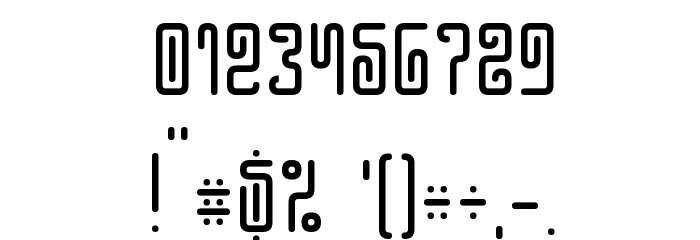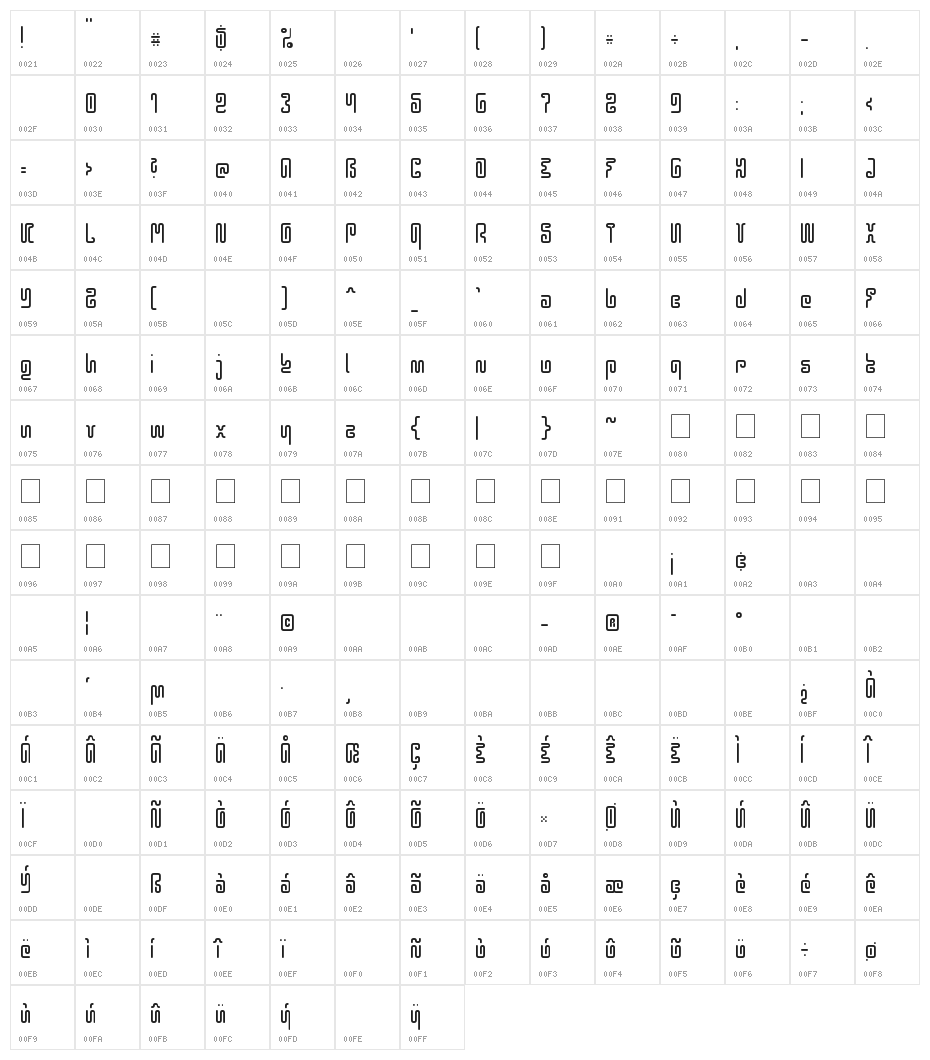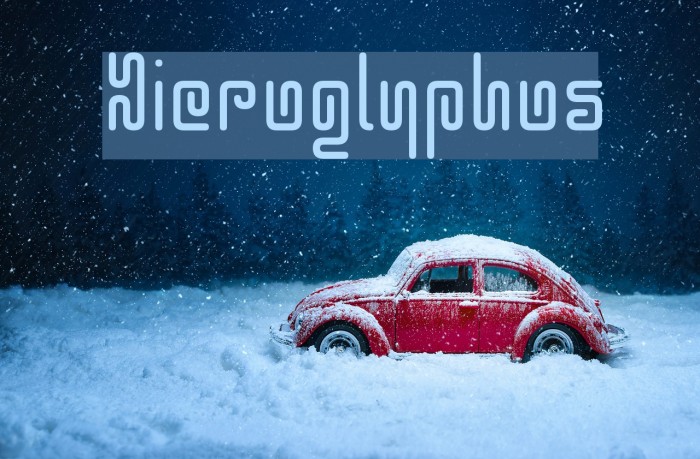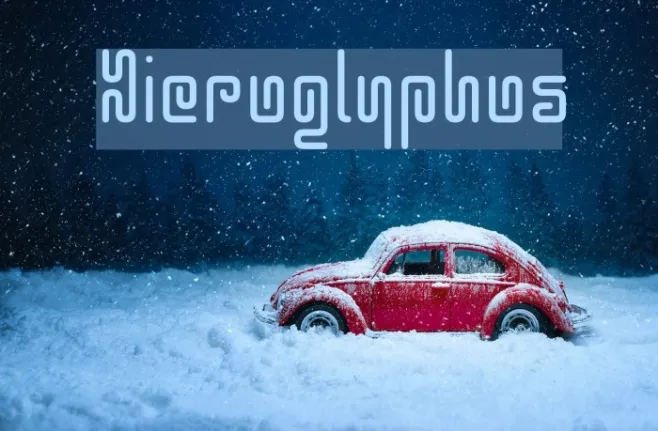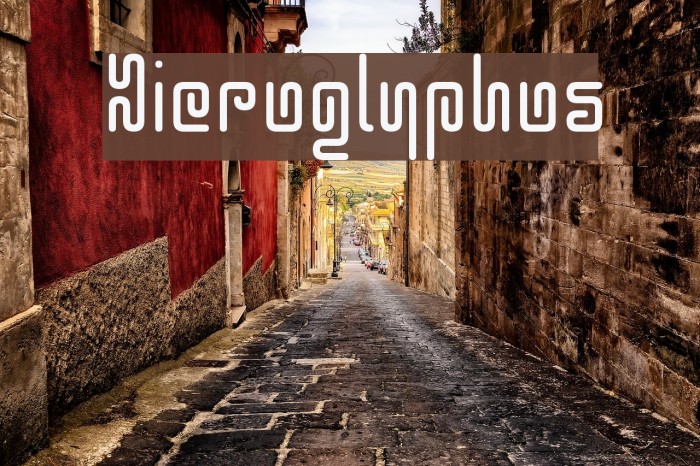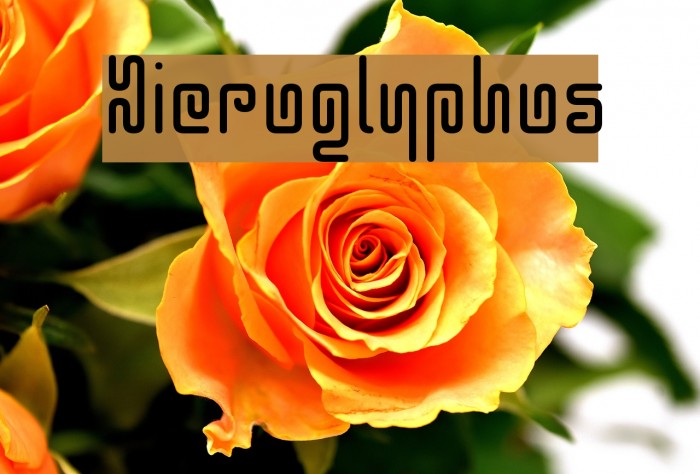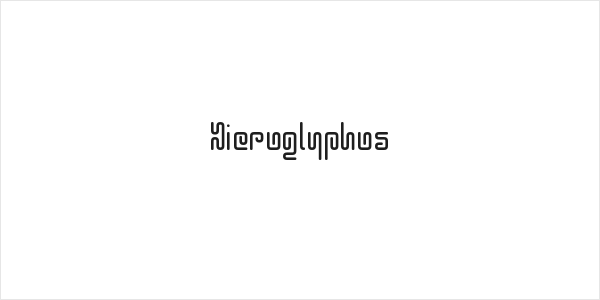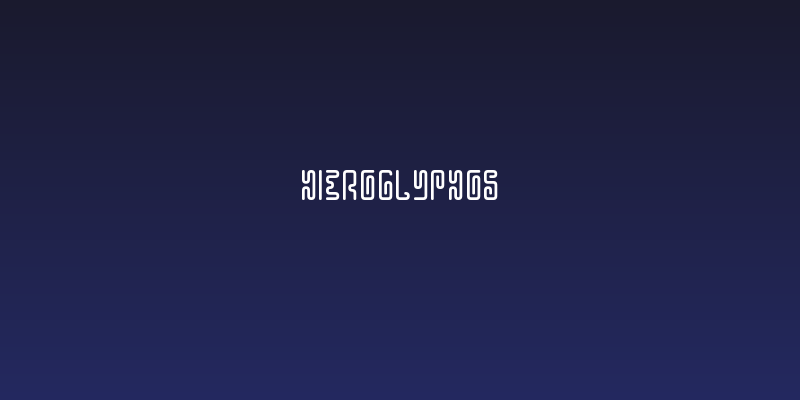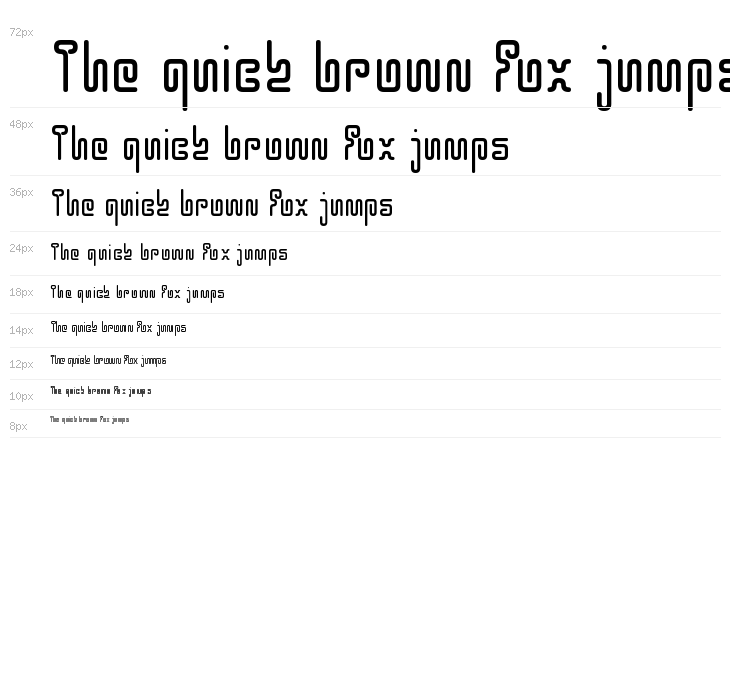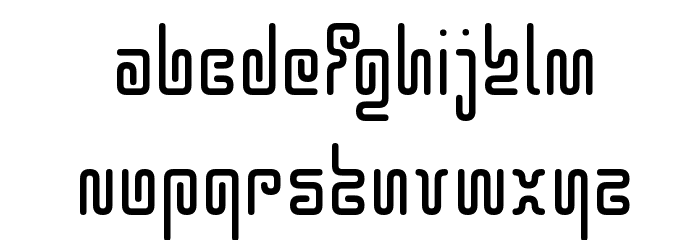
Hieroglyphos Font
Hieroglyphos Description
This font features a unique, decorative style that resembles ancient hieroglyphs with a modern twist. Each character is crafted with rounded edges and a consistent line thickness, giving it a smooth and cohesive appearance. The letters are highly stylized, with intricate curves and loops that add an artistic flair. Despite its decorative nature, the font maintains a level of readability, making it suitable for creative projects that require a distinctive look. The numbers and special characters follow the same design principles, ensuring uniformity across the entire set.